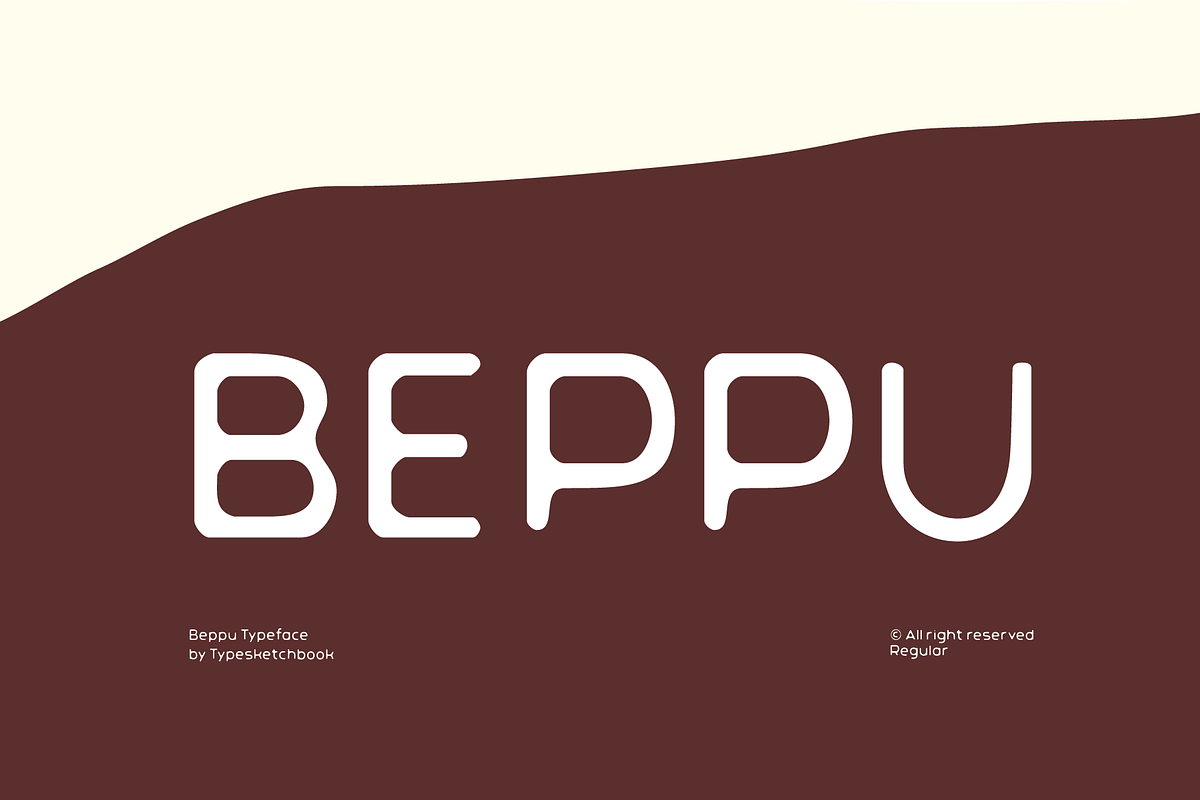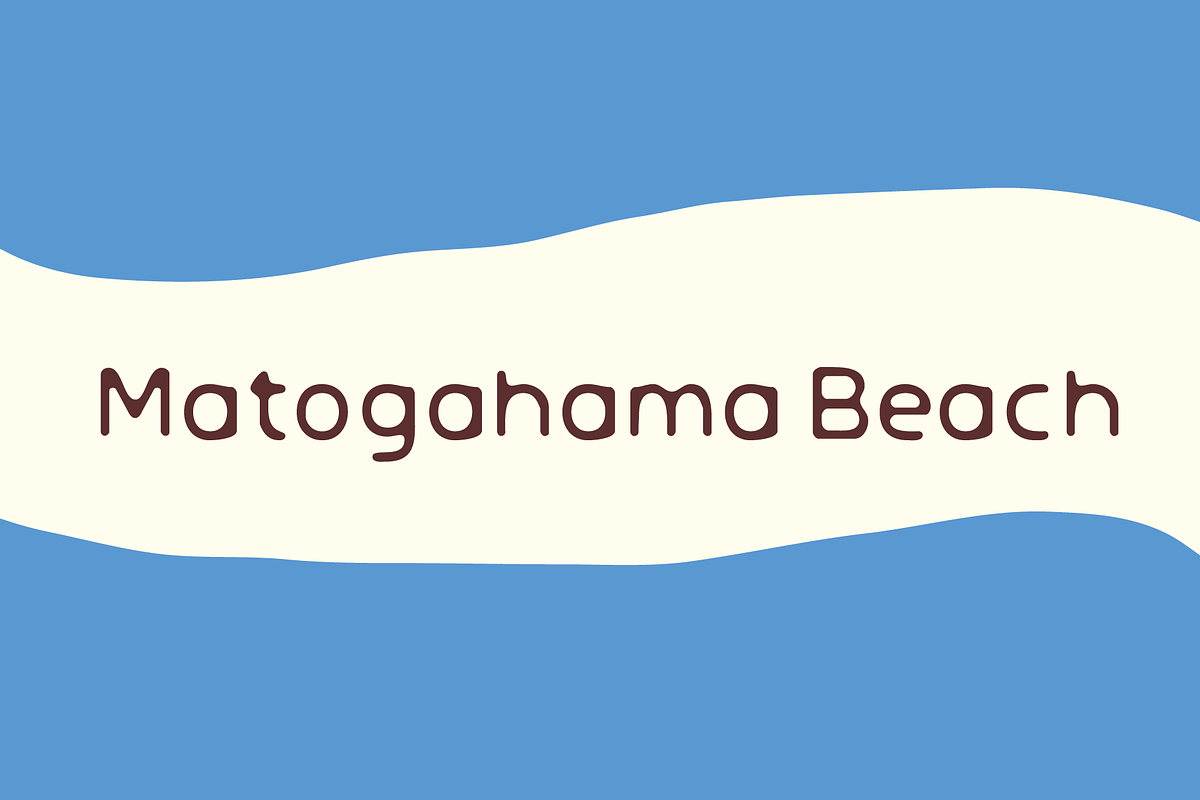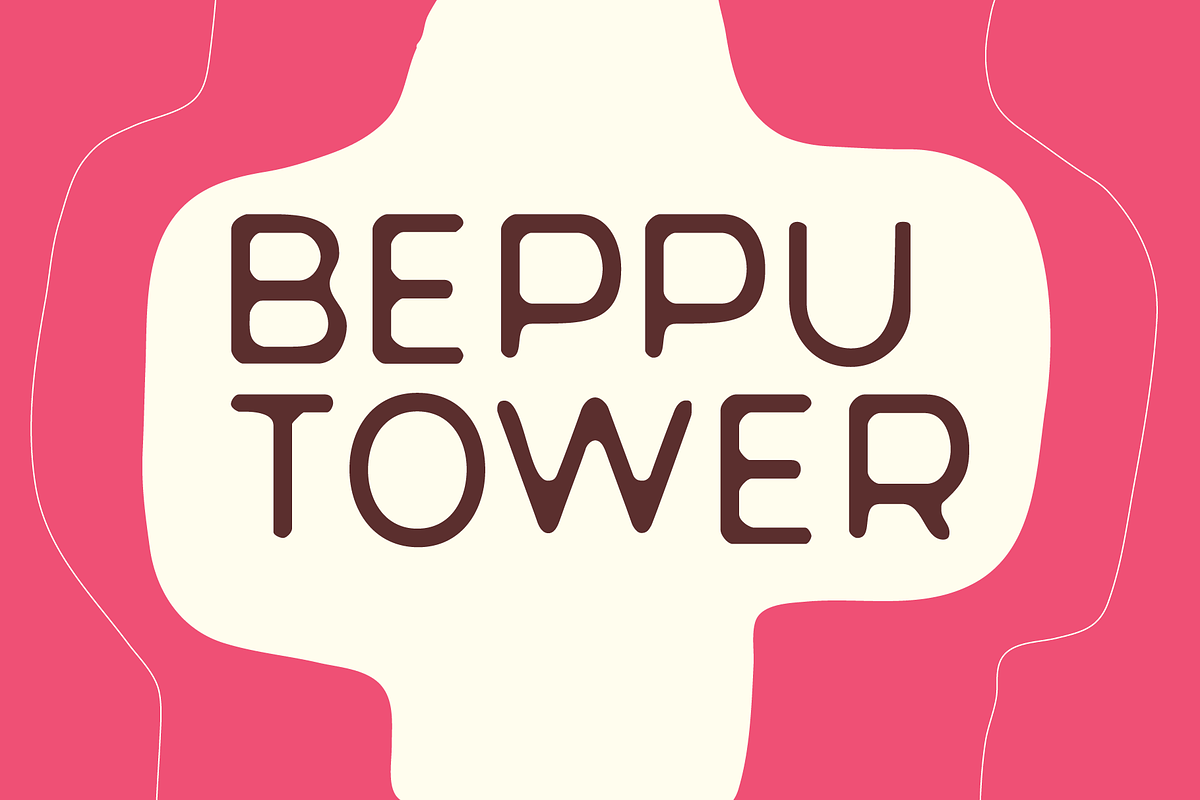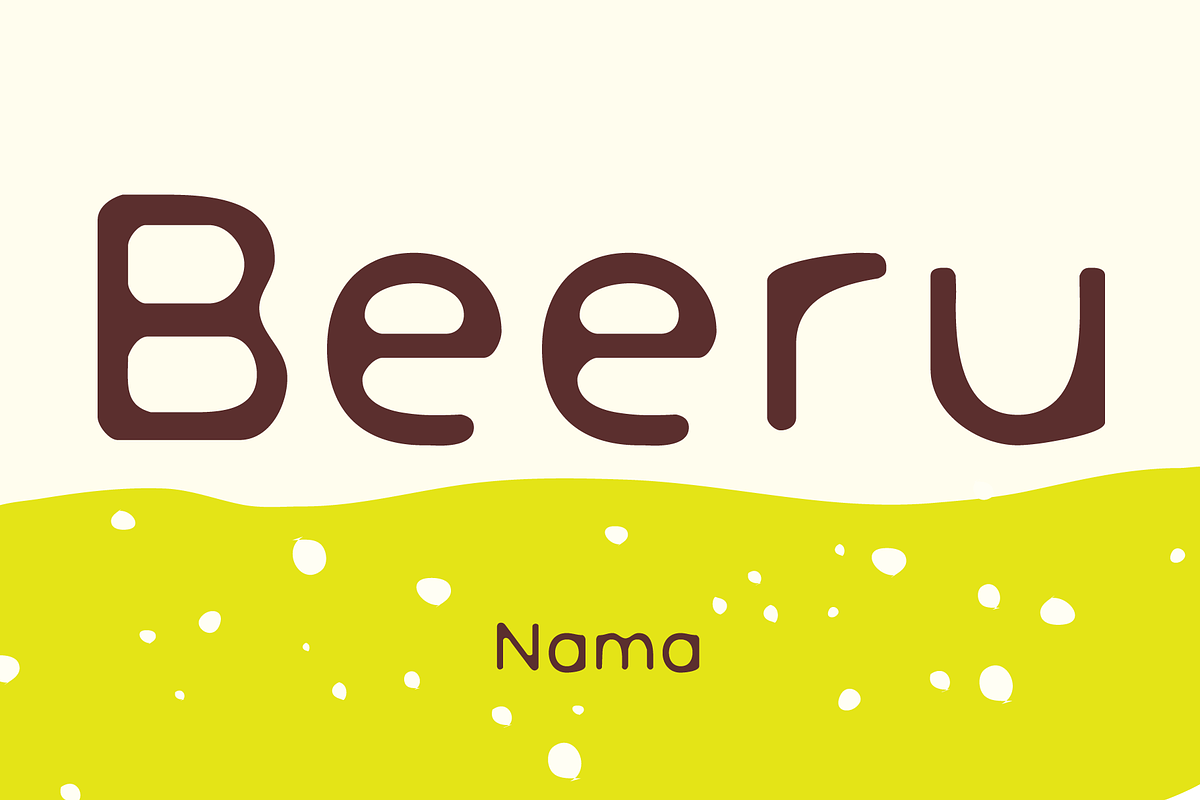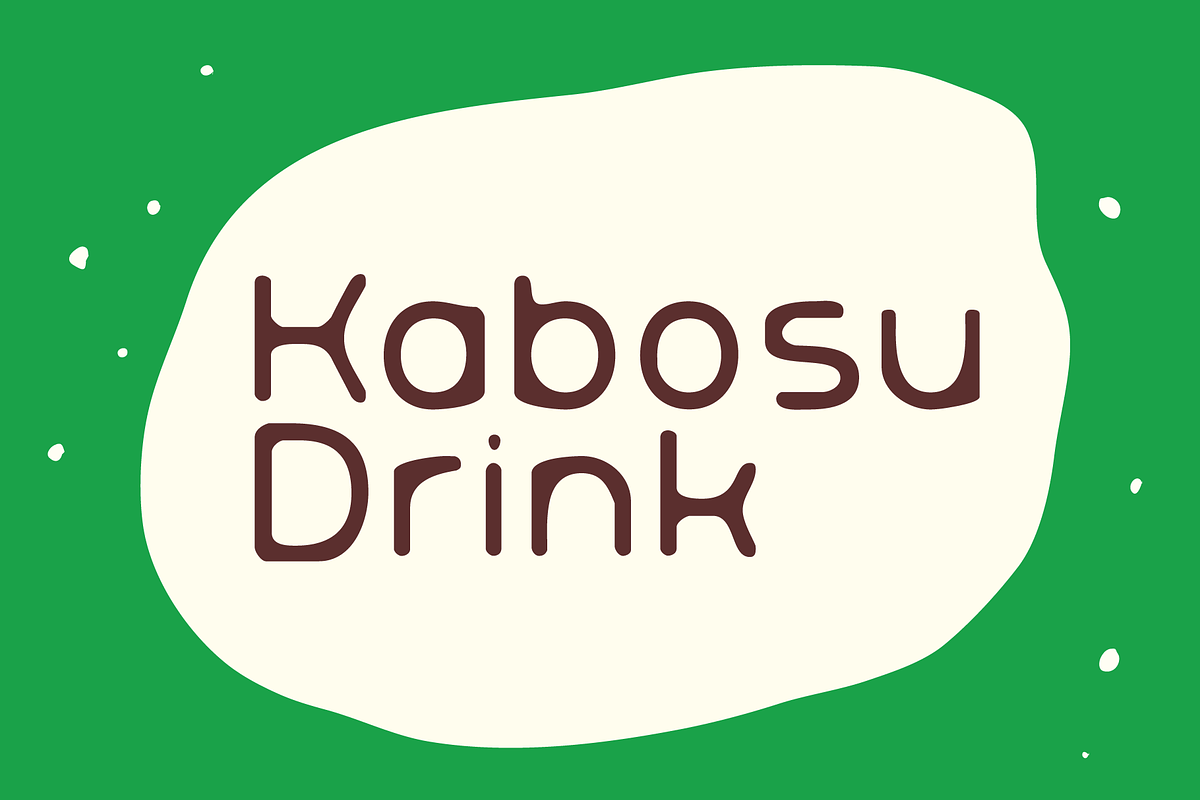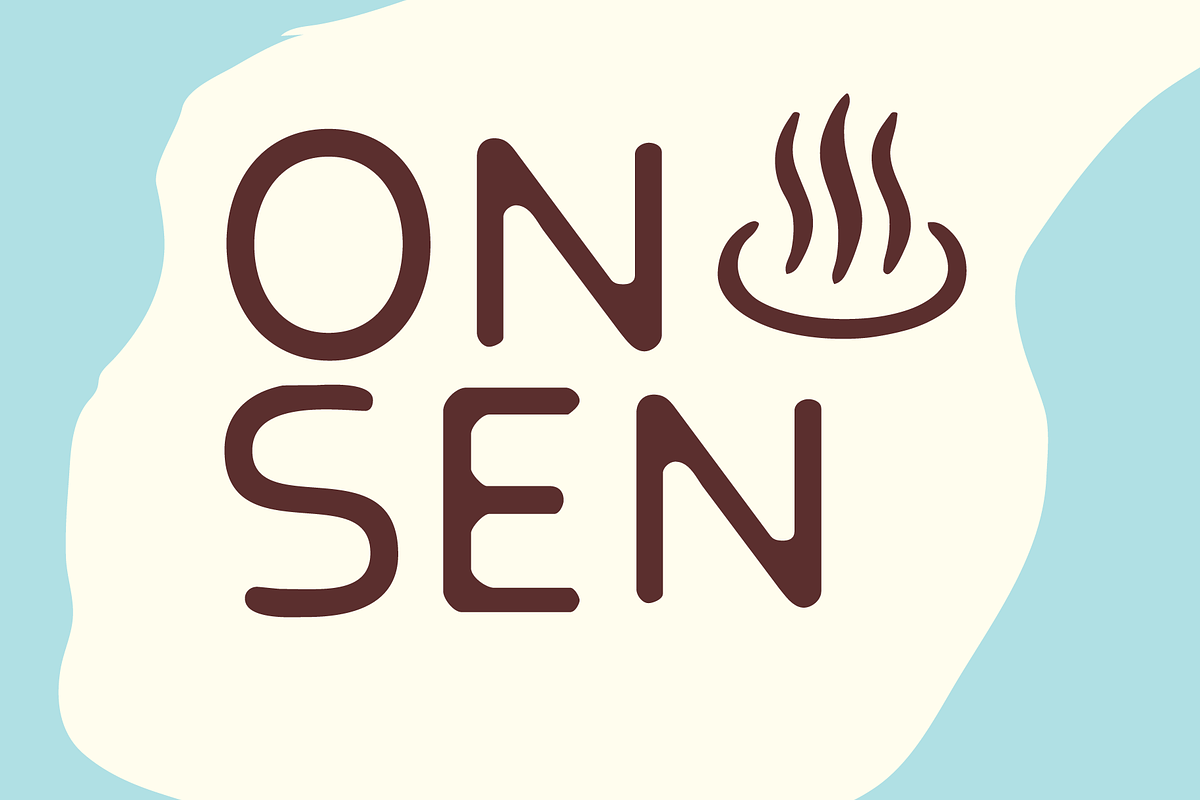
Beppu
Beppu is relaxed typeface. Inspired when i vistied Beppu in Japan, You may find it on art publications, in fancy cafes, or even on marriage invitation card.